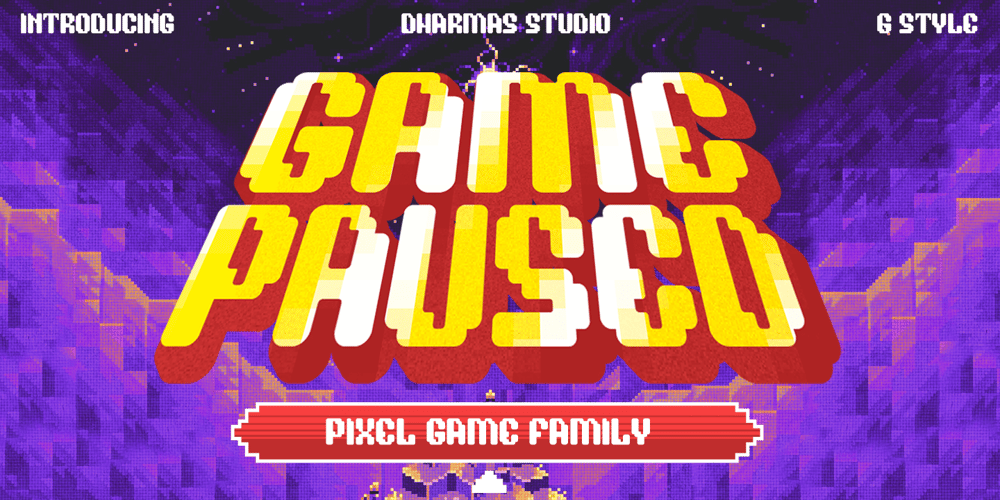
Game Paused Font Family was designed by Ahmad Jamaludin and published by Ahmad Jamaludin. Game Paused contains 6 styles and family package options. Dive into the world of retro nostalgia with the GAME PAUSED font. With its 6 unique styles in each type – Regular, Slant, Outline, Extrude, Outline Slant, and Extrude SlantFeatures: Game Paused Main File Has 6 Variable: Regular, Slant, Outline, Extrude, Outline Slant, and Extrude Slant Instructions (Access special characters, even in Cricut Design) Enjoy Designing!Dharmas Studio